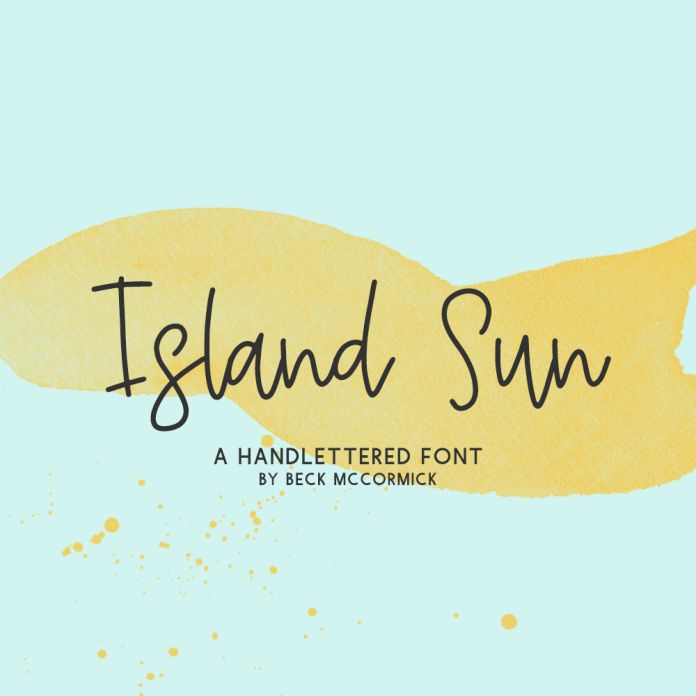
Introducing Island Sun, a modern calligraphy font. Island Sun is monoline, and also includes ligatures.
Island Sun is best for:
- feminine, crafty projects with your Cricut or Silhouette machine, or your SVG design business
Island Sun includes:
- 8 ligatures - ff, ll, mm, nn, oo, rr, ss, tt